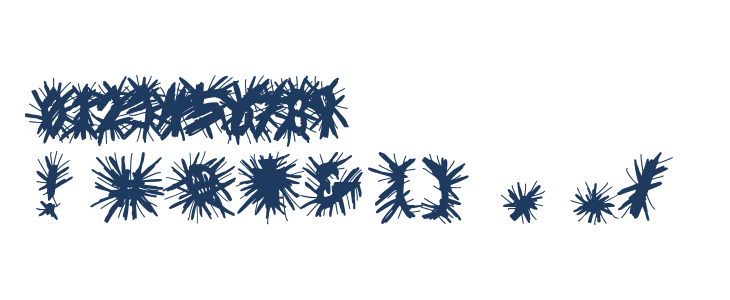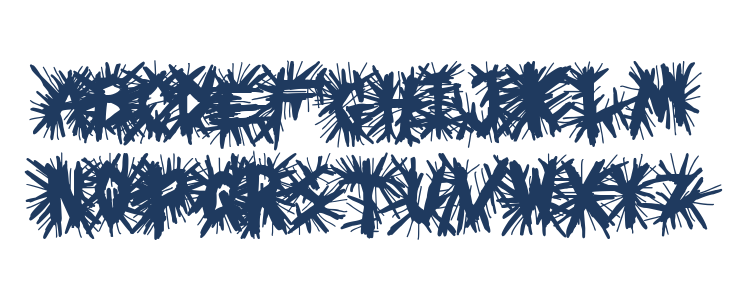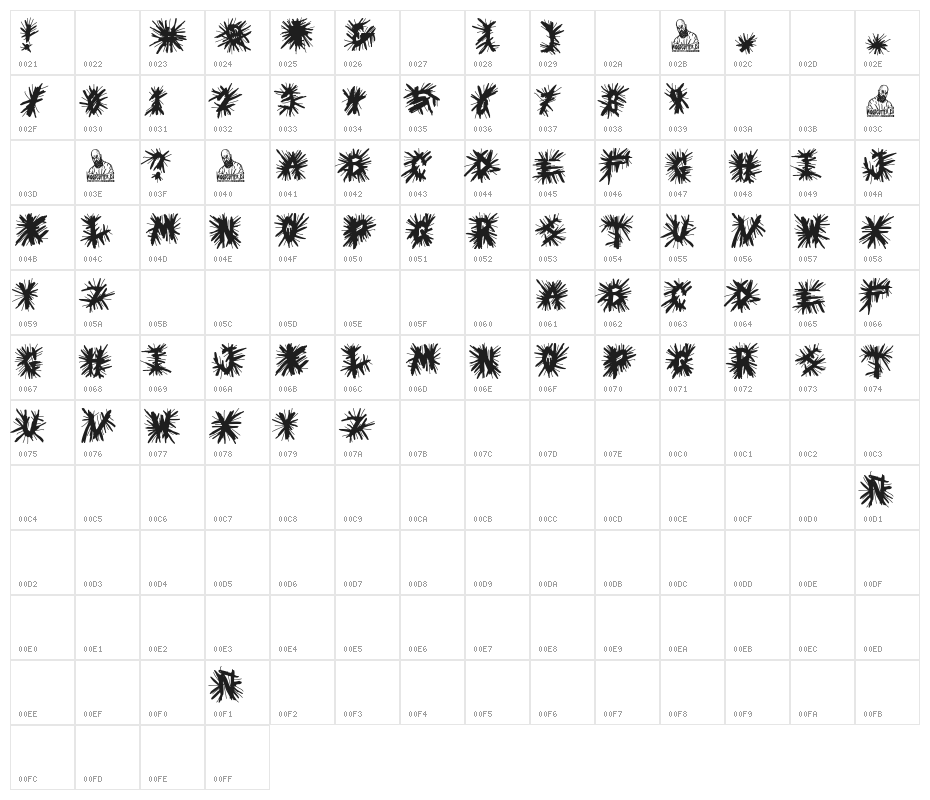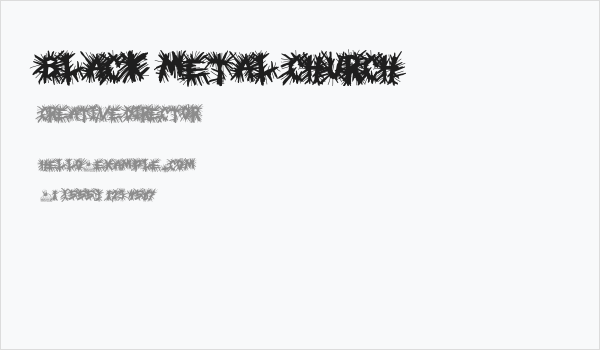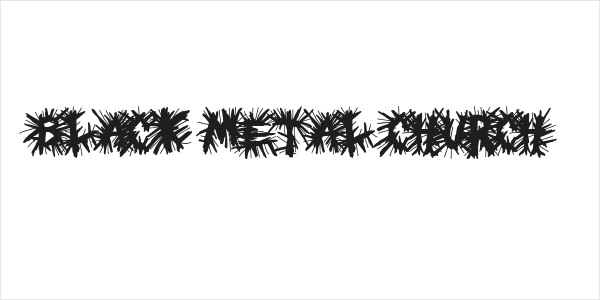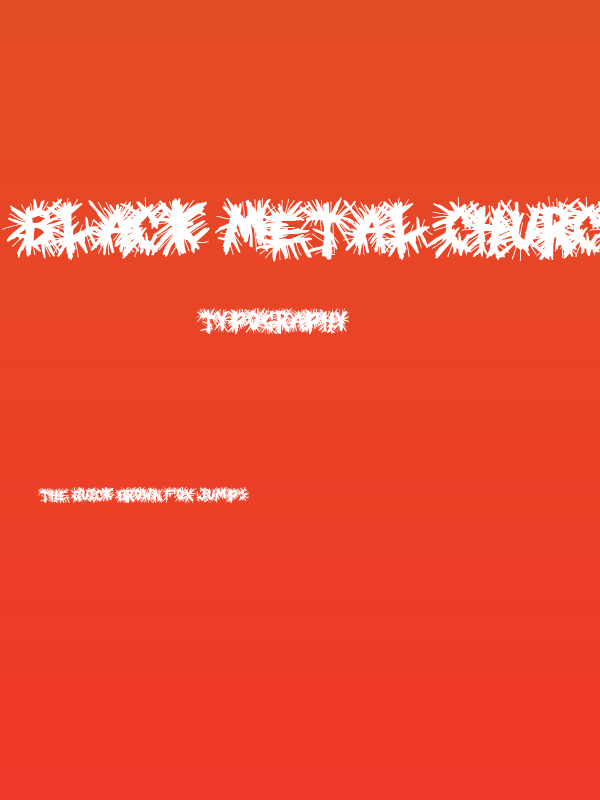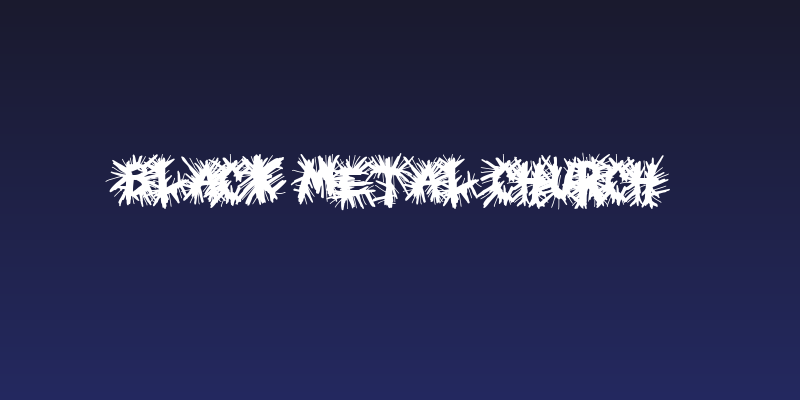
Black Metal Church Font
Black Metal Church Description
Highly decorative, chaotic font with spiky, jagged strokes radiating outward from each character, creating an aggressive and intense visual impact. The letterforms are bold and almost obscured by the overlapping lines, evoking a sense of raw energy and darkness.
| Overall Style | Decorative, Aggressive, Extreme, Modern |
| Use Case | Logos, Posters, Headlines |
| Proposed Projects | Band logos, horror posters, extreme music album covers, event flyers, alternative fashion branding. |